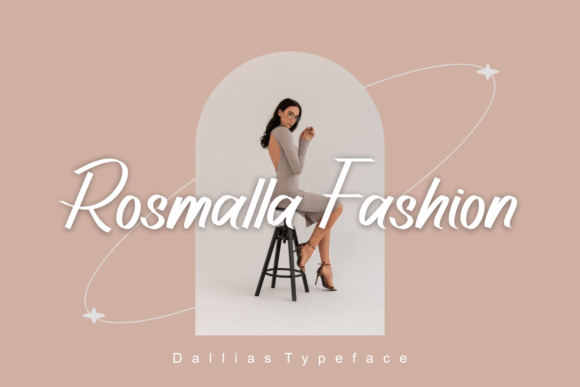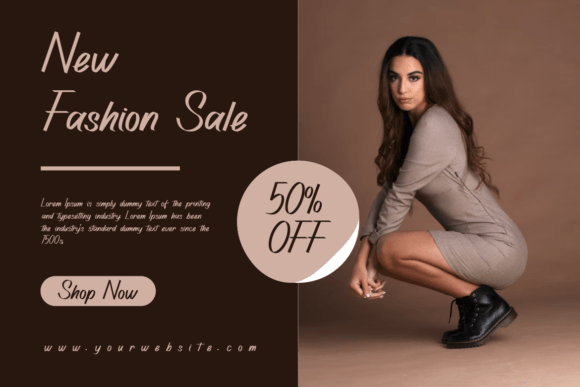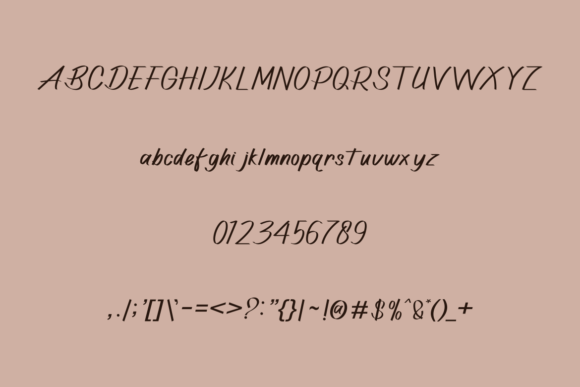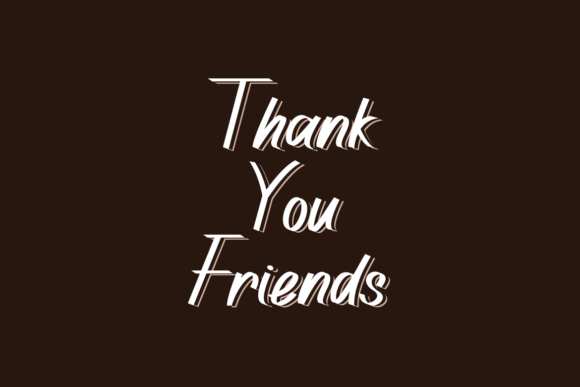
The Designer’s Delight: Getting to Know Dallias Font
I still remember the day I stumbled upon Dallias Font while working on a project for a client who wanted a personal, handcrafted feel. I had been scouring the internet for hours, trying to find the perfect handwritten font that would bring their brand to life. And then, I saw it – Dallias Font, with its elegant strokes and natural charm. It was love at first sight! 💕
An Honest Review of Dallias Font
What I Love About Dallias Font
- ✨ Elegant and Natural Style: Dallias Font boasts a beautiful, handwritten aesthetic that adds a touch of sophistication to any design project.
- ✅ Highly Versatile: Whether you’re working on a logo, a poster, or a social media graphic, Dallias Font adapts seamlessly to different contexts.
- 💫 Emotional Connection: The font’s organic feel creates an instant emotional connection with the audience, making it perfect for projects that require a personal touch.
While Dallias Font is an excellent choice for many projects, there are a few things to keep in mind:
- ⚠️ Legibility at Small Sizes: Like many handwritten fonts, Dallias may become less legible at very small sizes. It’s best used at larger sizes or for headlines.
- 🤔 Pairing with Other Fonts: Due to its distinctive style, Dallias Font can be a bit challenging to pair with other fonts. It’s essential to choose complementary fonts that don’t compete with its elegance.
The Story Behind Dallias Font
Dallias Font was designed with the intention of capturing the elegance and charm of handwritten typography. The designer aimed to create a font that feels both personal and sophisticated, perfect for creative projects that demand a unique touch. While the real story behind Dallias Font might be fictional, its impact on the design community is very real.
Q: Is Dallias Font suitable for body text?
A: While Dallias Font is beautiful, it’s primarily designed for headlines and short paragraphs. For longer body text, a more traditional font might be more readable.